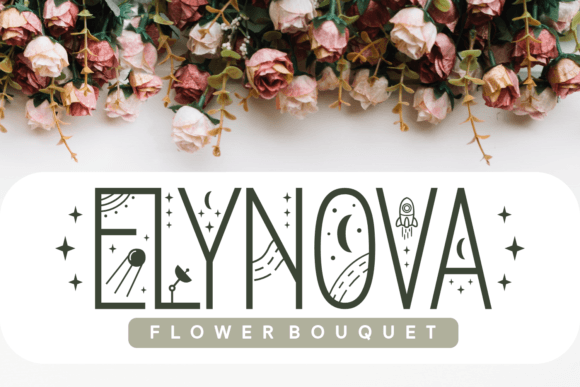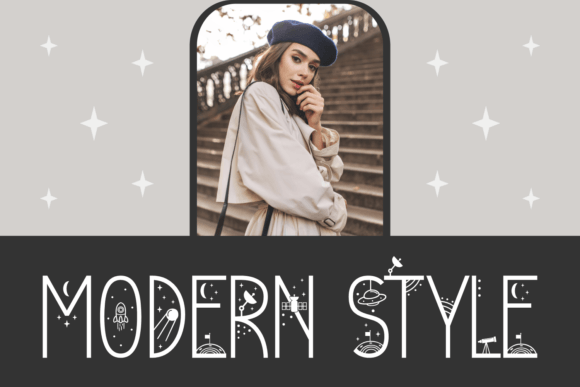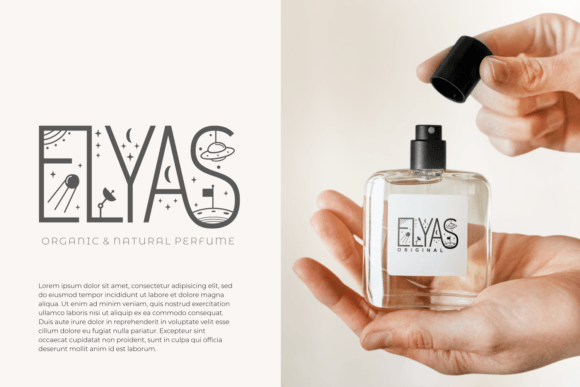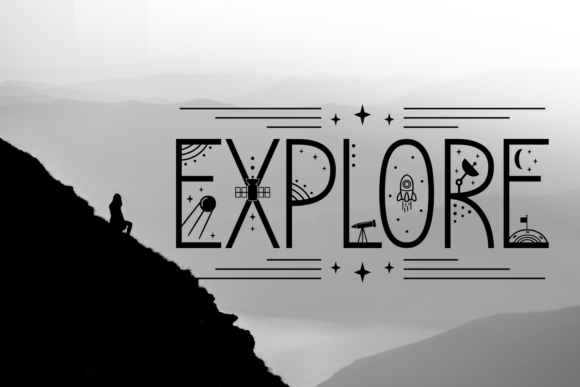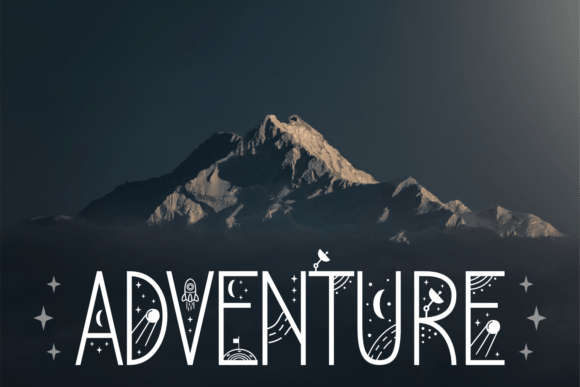
Unlocking the Cosmos with Casteloz Font
Outer space is there to be explored. The limit is our imagination! As designers, we’ve all been there – stuck on a project, searching for that perfect font to capture the essence of our vision. I still remember the time I was working on a sci-fi movie poster, and my client asked for a font that would transport their audience to another galaxy. After hours of scouring the internet, I stumbled upon Casteloz Font, and it was love at first sight! ✨
A Personal Review of Casteloz Font
- 💫 **Galactic versatility**: Casteloz Font is perfectly suited for future and science segmented magazines, posters, movie titles, music posters, YouTube covers, YouTube thumbnails, social media page covers, and more!
- ✅ **Clean and modern design**: The font boasts a sleek, futuristic aesthetic that’s sure to elevate any design project.
- 🔥 **Highly legible**: Even at small sizes, Casteloz Font remains crystal clear, making it perfect for body text or titles.
While Casteloz Font is an amazing addition to any design project, there are a few things to keep in mind: ⚠️
- 🤔 **Limited language support**: As with many fonts, language support might be limited, so be sure to check the character set before using it for a multilingual project.
- ⚠️ **Occasional kerning issues**: As with any font, you might encounter some kerning issues, especially when using it at larger sizes or in combination with other fonts.
The Designer Inspiration Behind Casteloz Font
While the true story behind Casteloz Font remains a mystery, it’s easy to imagine that its designer was inspired by the wonders of the cosmos. Perhaps they spent countless hours gazing up at the stars, dreaming of a font that would capture the essence of the universe. Whatever the inspiration, Casteloz Font is a shining example of modern font design.
Q: What type of projects is Casteloz Font best suited for?
A: Casteloz Font is perfect for future and science segmented magazines, posters, movie titles, music posters, YouTube covers, YouTube thumbnails, social media page covers, and more!
Q: Is Casteloz Font available in different weights or styles?
A: While the exact font family may not be available in multiple weights or styles, you can experiment with font sizes, colors, and effects to achieve the desired look.